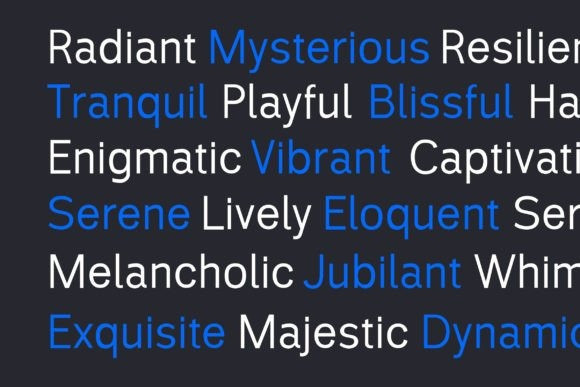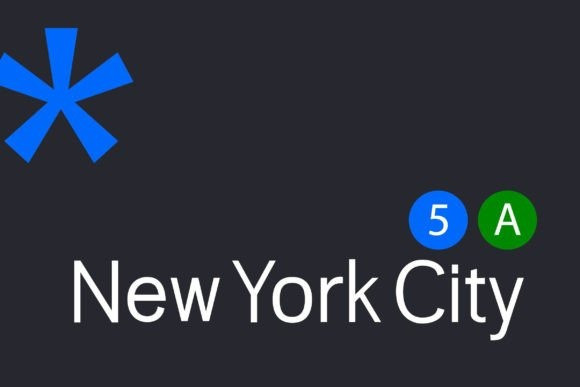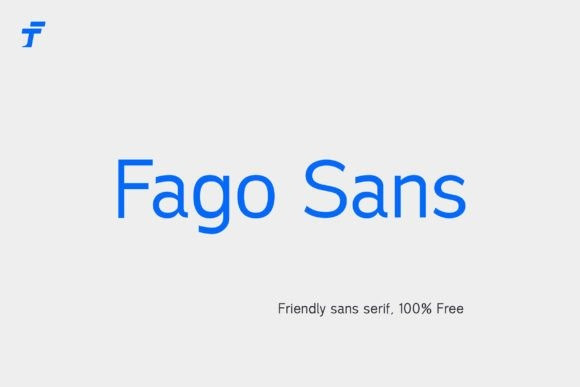
Fago Sans Font
Fago Sans Font embodies the essence of modern design. Its clean lines, absence of unnecessary embellishments, and straightforward elegance make it a timeless choice. Whether used in print or digital media, FagoSans adds a touch of contemporary sophistication.